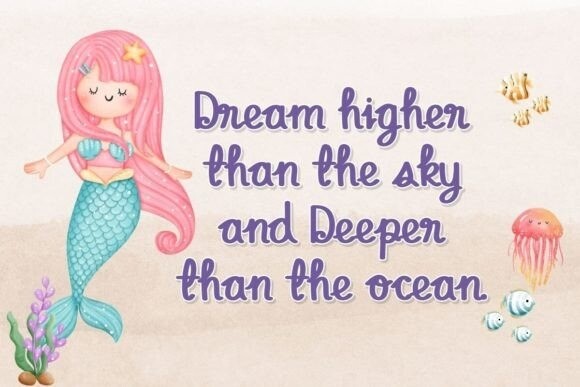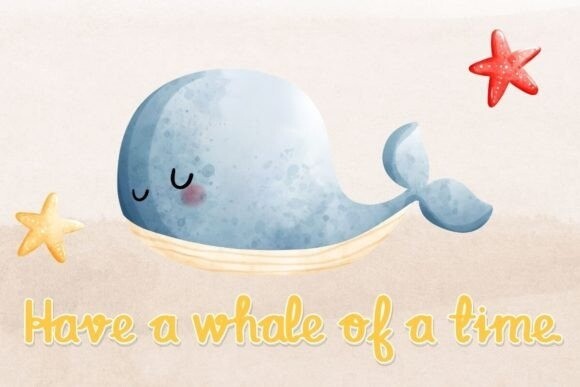
Vitamin Sea Font
Vitamin Sea Font – the ultimate blend of display and handwritten fonts, designed to infuse your creative projects with a breath of fresh ocean breeze. With its captivating strokes and whimsical charm, Vitamin Sea captures the essence of free-spirited handwritten fonts while maintaining the bold presence of sophisticated display fonts. Like a handwritten note from a dear friend, this font carries a sense of familiarity and warmth, making it the perfect choice for anything from invitations to branding materials.